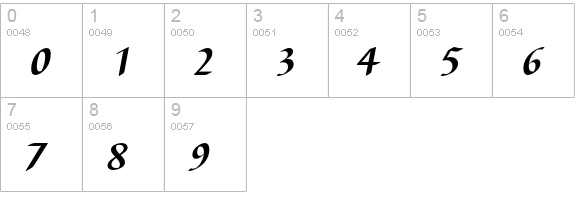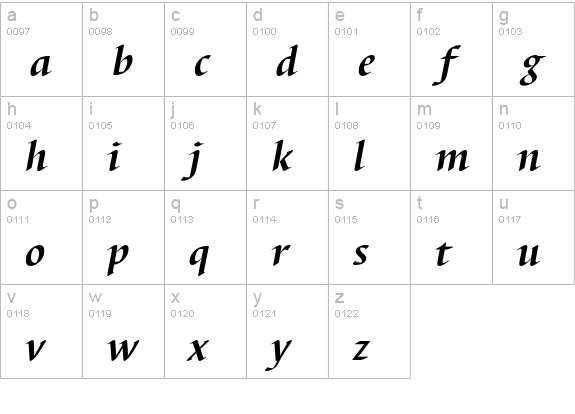
Barbedor T Bold Italic is a strong, high-contrast, italic variant in the Barbedor typeface family \xE2\x80\x94 well suited to headlines, attention-grabbing titles, and strong calls-to-action.
Barbedor T Bold Italic is a striking and dynamic font that exudes confidence and sophistication. With its bold weight and stylish italic slant, this typeface is perfect for making a bold statement in any design project. The sharp barbs and curves of the letters give it a modern and edgy look that is sure to capture attention. What makes Barbedor T Bold Italic even more appealing is that it is available for free download at FontsMarket.com. This means that you can easily access this premium font without any cost, making it a valuable addition to your font collection. Whether you're designing a poster, website, or logo, Barbedor T Bold Italic will add a touch of elegance and flair to your project. Don't miss out on the opportunity to enhance your designs with this versatile and eye-catching font.